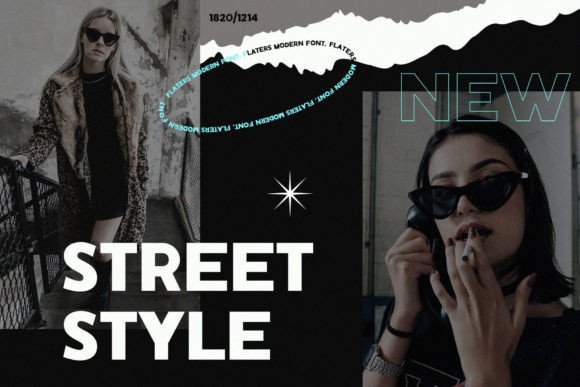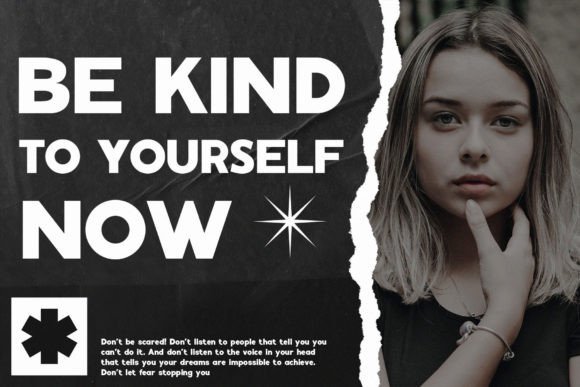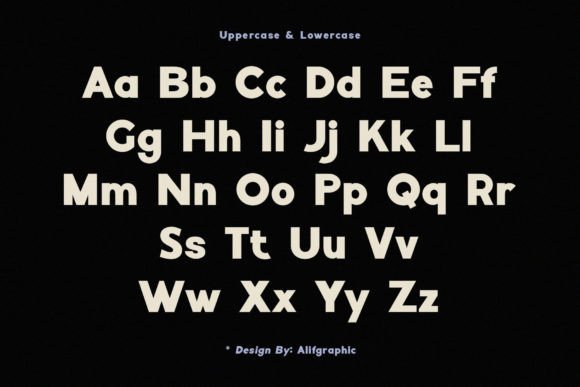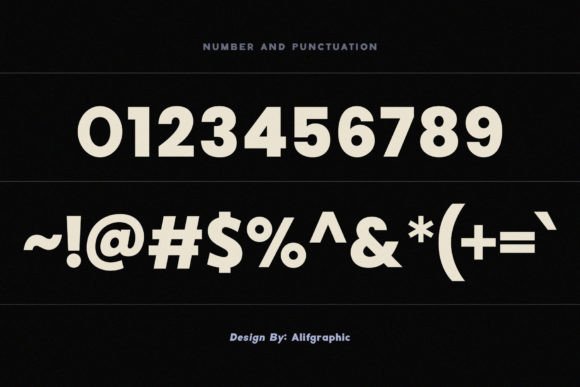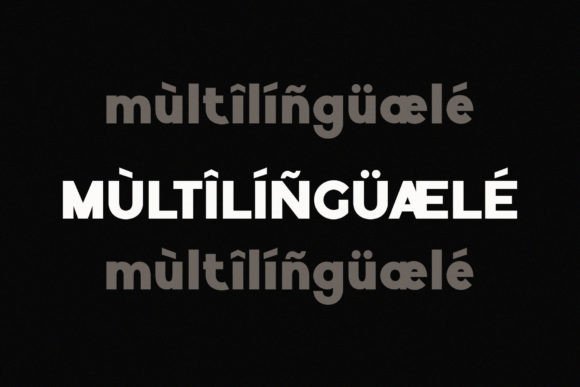
Introducing Flaters Font: The Friendly and Versatile Sans Serif Font
Are you tired of using the same old fonts for your designs and crafts? Look no further than Flaters Font, a modern sans serif font that exudes friendliness and approachability. In this article, we’ll dive into the world of Flaters Font and explore its features, benefits, and uses, making it the perfect addition to your typography arsenal.
The Characteristics of Flaters Font
Flaters Font is an easy-to-read sans serif font that boasts a clean and minimalist aesthetic. Its sleek lines and rounded edges give it a soft, approachable feel that’s perfect for a wide range of design applications. Whether you’re creating digital content, crafting handmade cards, or designing presentations, Flaters Font is the ideal choice for adding a touch of warmth and personality to your work.
The Benefits of Using Flaters Font
So, what sets Flaters Font apart from other fonts? Here are just a few benefits of using this versatile font:
- Readability: Flaters Font is designed to be easy to read, making it perfect for body text, headings, and titles.
- Friendliness: The font’s rounded edges and soft curves give it a friendly, approachable feel that’s perfect for creating a warm and welcoming atmosphere.
- Versatility: Flaters Font is suitable for a wide range of design applications, from digital design and presentations to crafting and making greeting cards.
Uses for Flaters Font
Flaters Font is an incredibly versatile font that can be used in a variety of design applications. Here are some ideas to get you started:
- Crafts: Use Flaters Font to add a personal touch to your handmade crafts, such as scrapbooking, card making, and journaling.
- Digital Design: Flaters Font is perfect for digital design projects, including social media graphics, blog posts, and website headers.
- Presentations: Add a touch of friendliness and approachability to your presentations with Flaters Font.
- Greeting Cards: Use Flaters Font to create warm and welcoming greeting cards for any occasion.
Why Flaters Font Will Become Your Go-To Font
With its easy-to-read design, friendly aesthetic, and versatility, Flaters Font has the potential to become your go-to font for all your design needs. Whether you’re a designer, crafter, or simply someone who loves to create, Flaters Font is the perfect addition to your typography arsenal.
In conclusion, Flaters Font is a modern sans serif font that offers a unique combination of readability, friendliness, and versatility. With its clean design and approachable aesthetic, it’s the perfect choice for a wide range of design applications. Whether you’re a seasoned designer or just starting out, Flaters Font is sure to become your new favorite font.
Get Ready to Fall in Love with Flaters Font